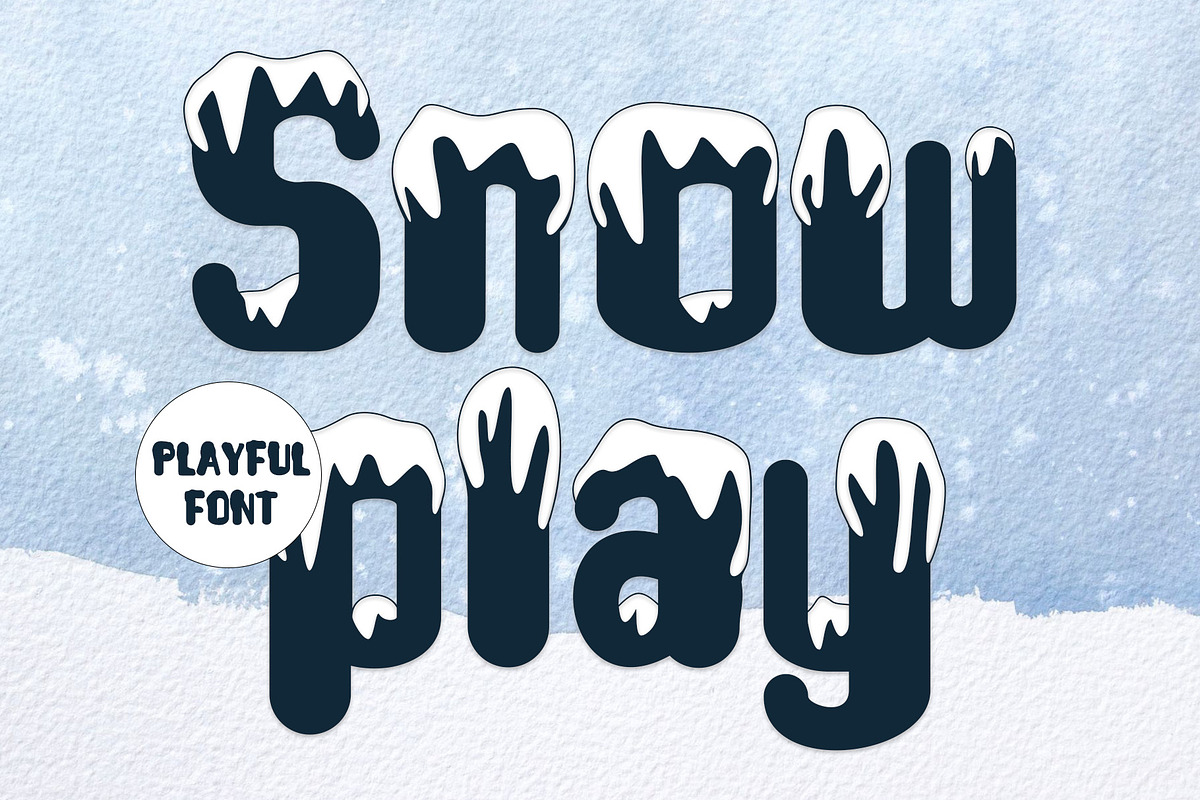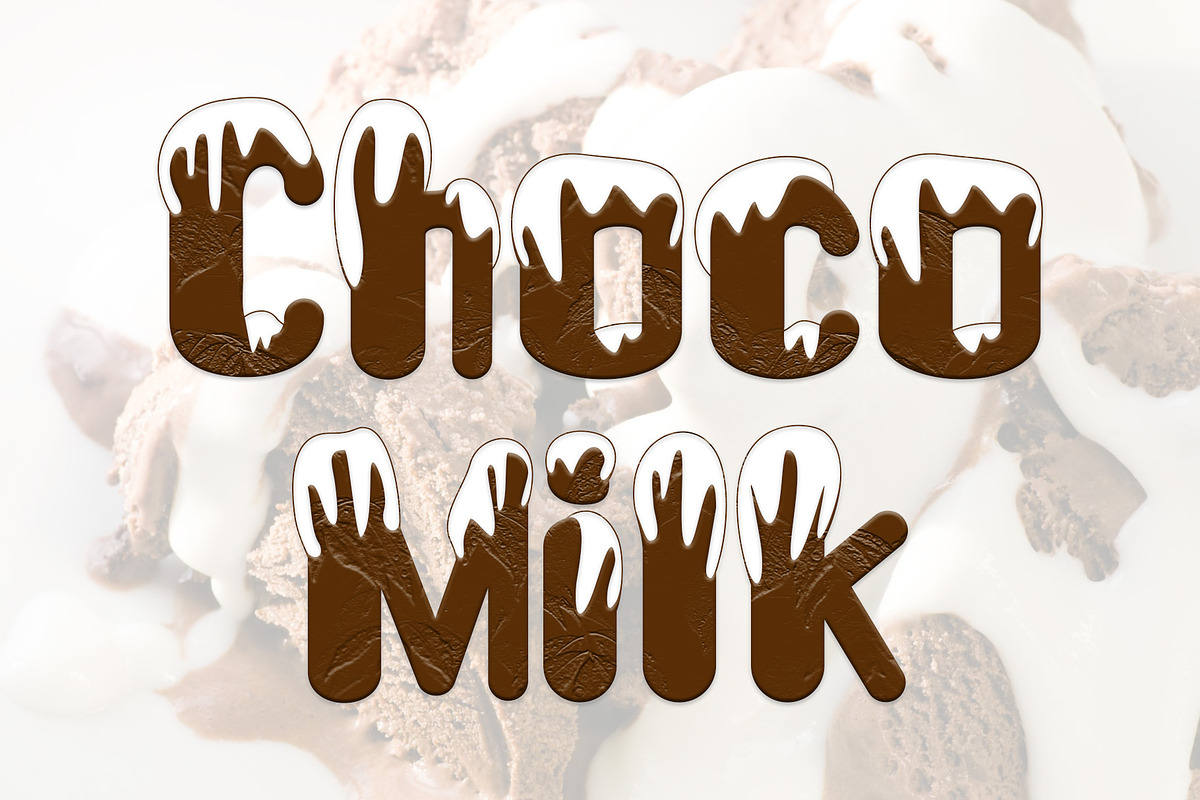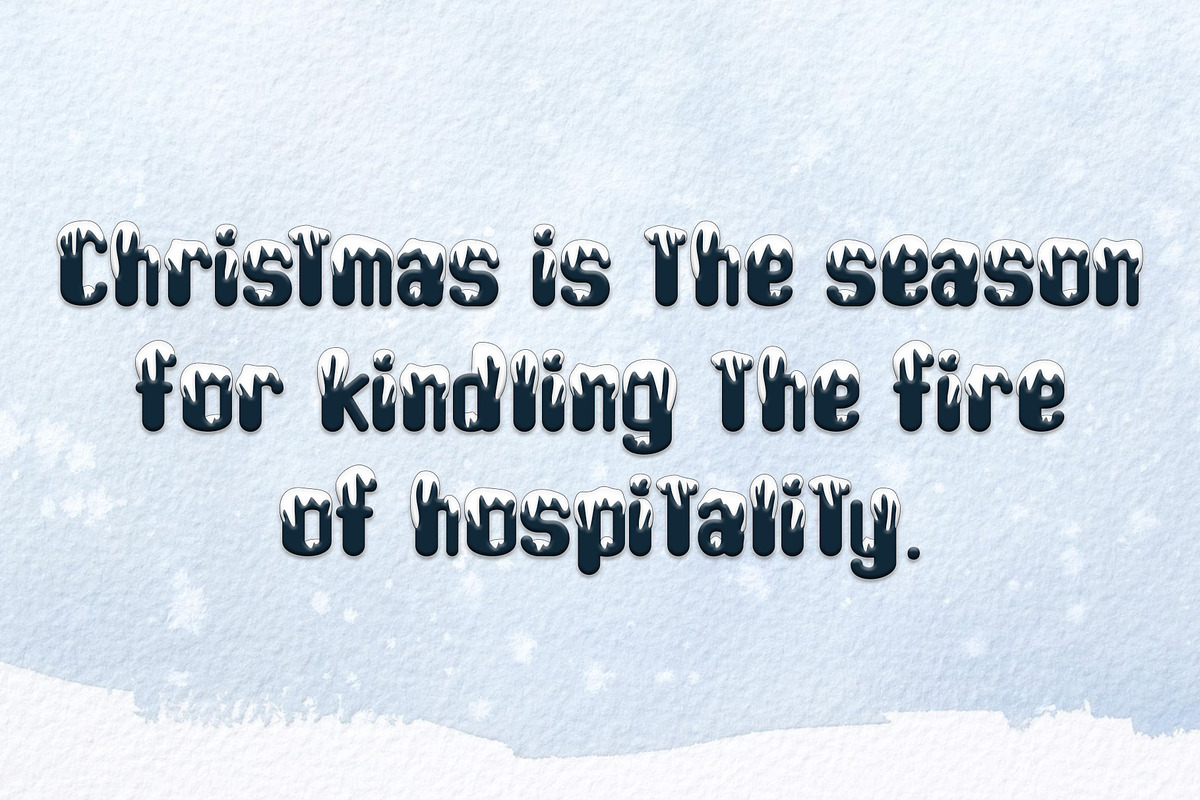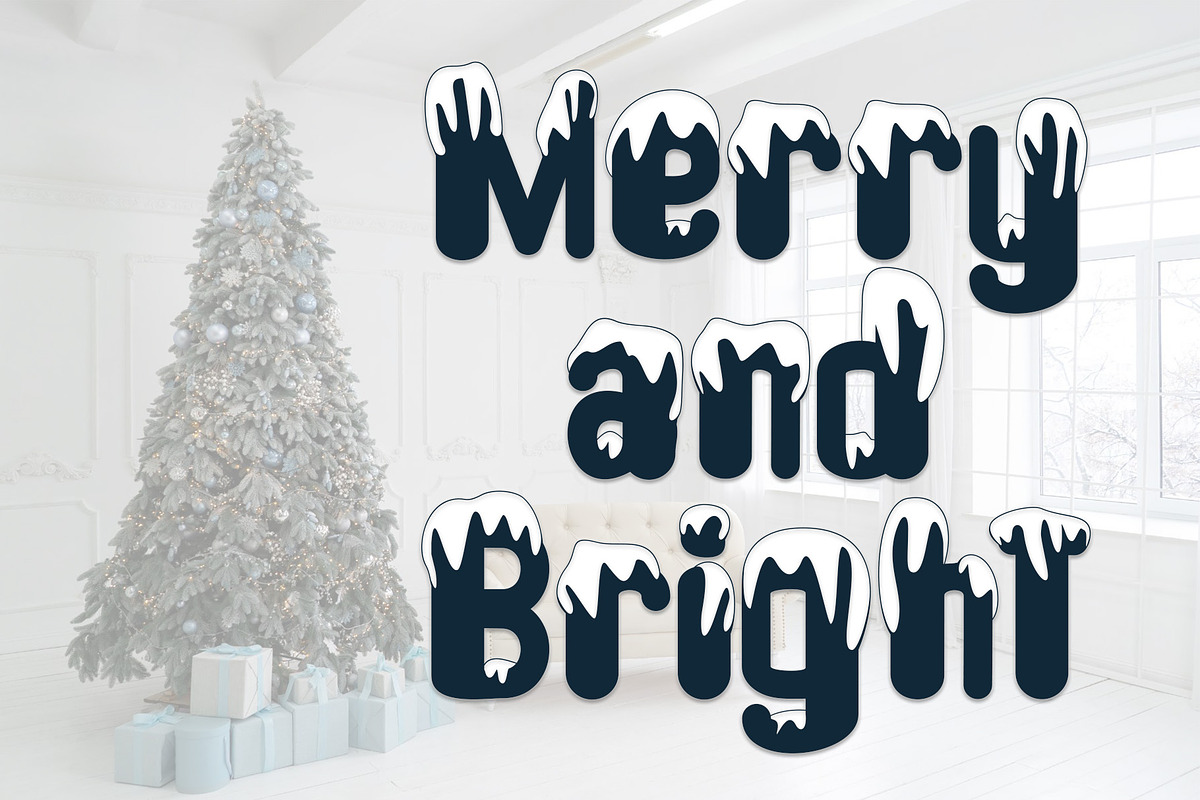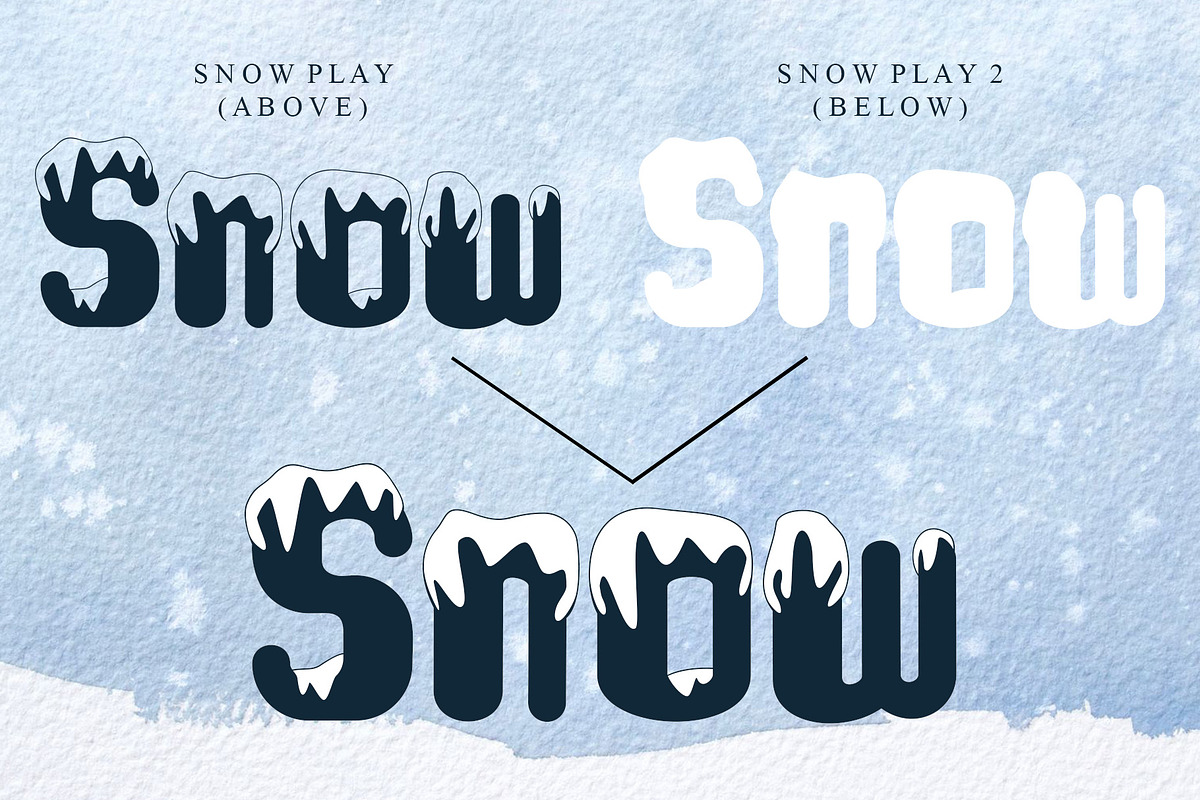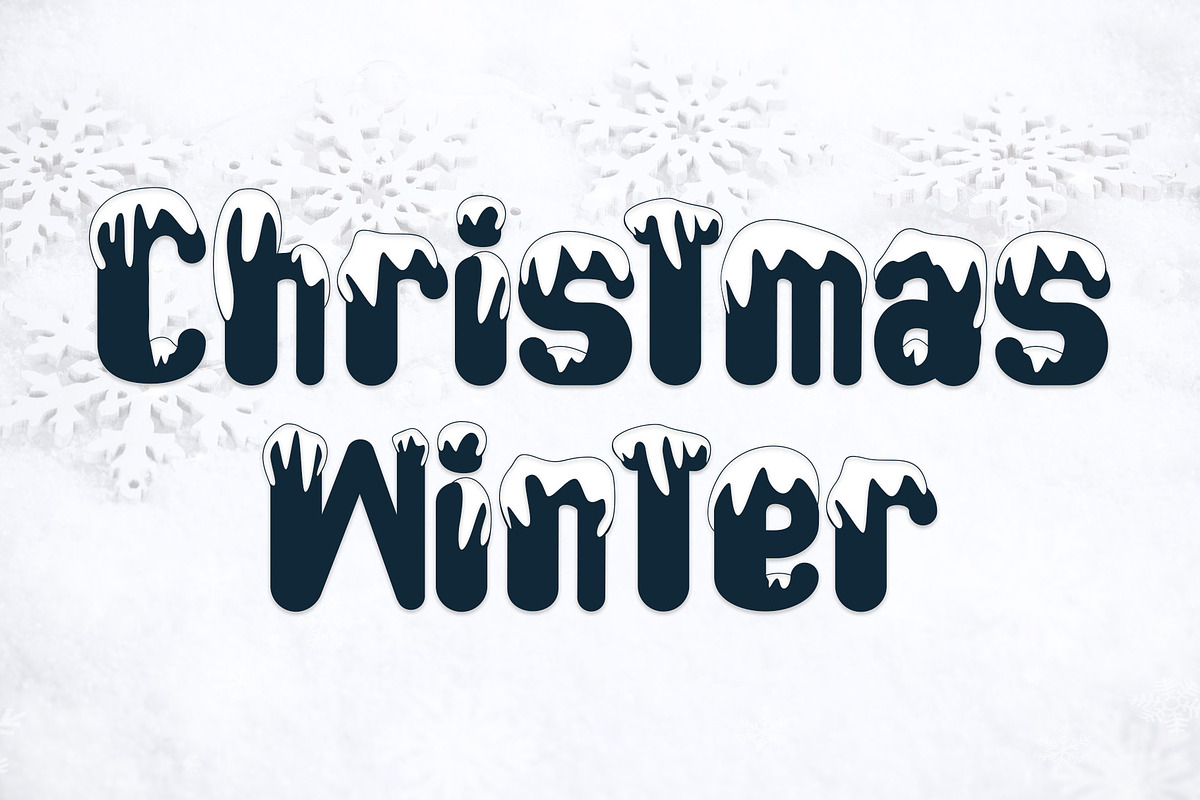
Snow Play
"Snow Play" is a magnificent snow-inspired font. Designed to enhance your festive season, "Snow Play" is the ideal font choice for your Christmas-themed projects. Its frosted characteristics embody the beauty and exuberance of winter, making it a must-have font to turn your Christmas ideas into an exquisite reality.